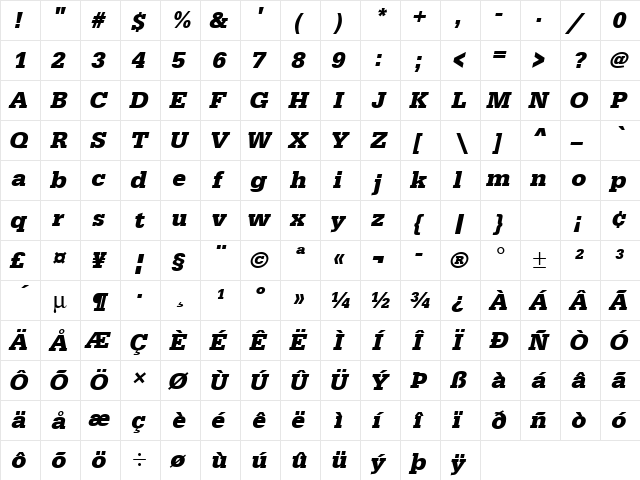
URWEgyptienneT Bold Oblique Font Preview
Design Context for URWEgyptienneT Typeface
URWEgyptienneT offers clean, dependable letterforms without strong stylistic allegiance, making it a practical choice for designers who need flexibility. The dynamic lean of this cut emphasises speed and emphasis in any layout. The heavy weight commands attention and anchors typographic hierarchies.
Pro Tip: Try URWEgyptienneT for annotation and caption copy alongside an upright companion — the contrast in angle creates a dynamic but ordered typographic system.